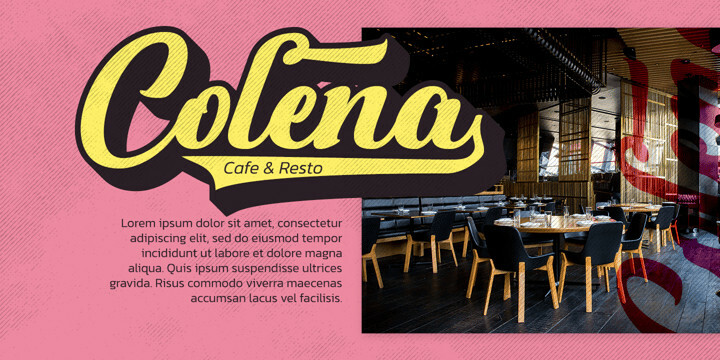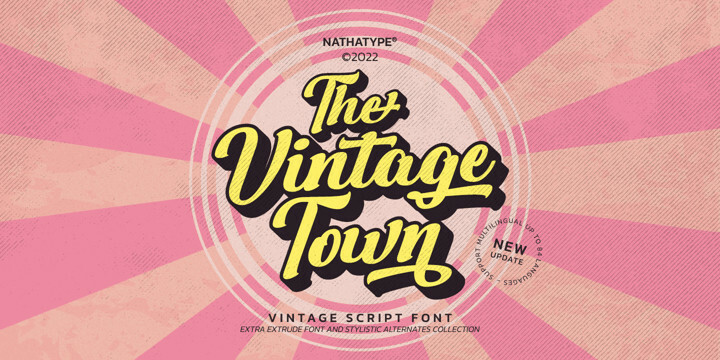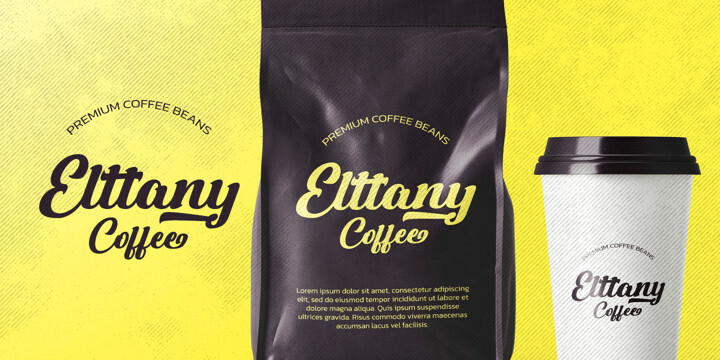
The Vintage Town Font
The Vintage Town FontThe Vintage Town is a script font that has a varied base line, fine lines, retro, and fun touches. This font features thick and angular letters that easy on the eyes and nice to look while it’s also easy to read. It is becomes more special with extruding version option. Fall in love with it’s authentic feel and use it to create gorgeous titles., beautiful poster designs, eye-catching social media posts, cute logos, and many more.